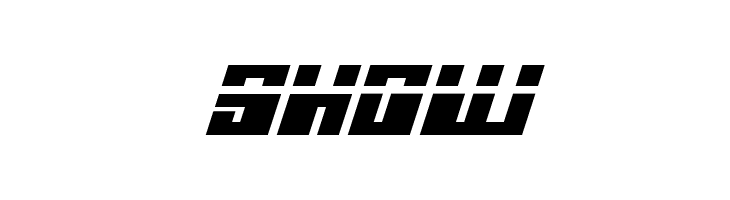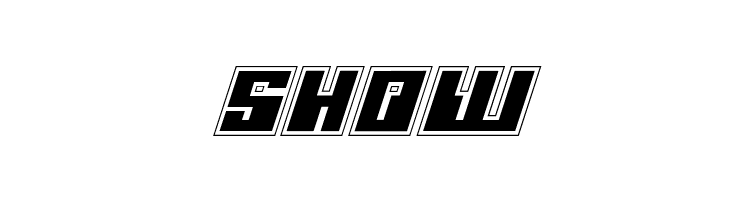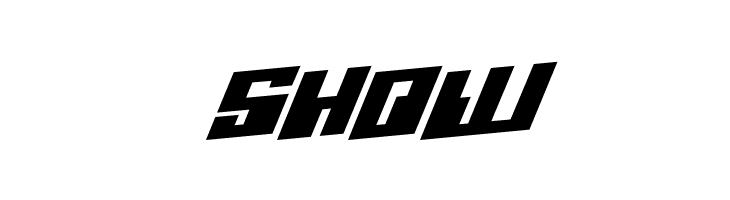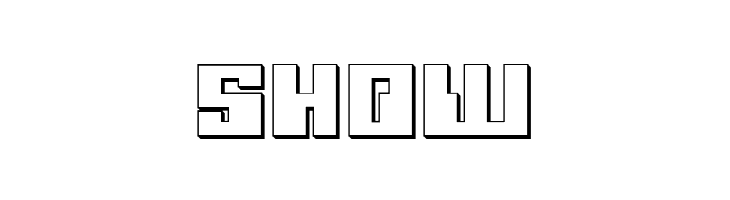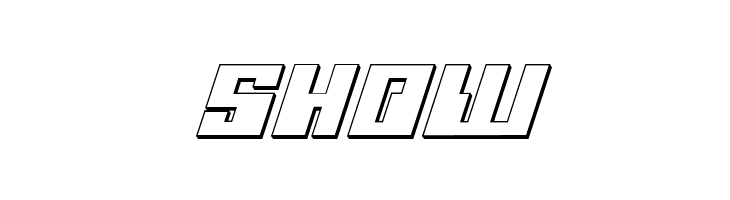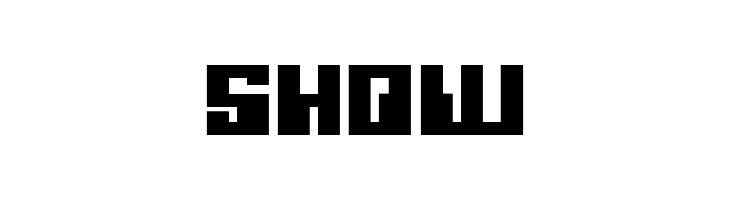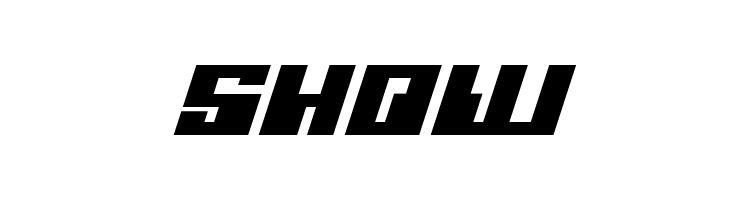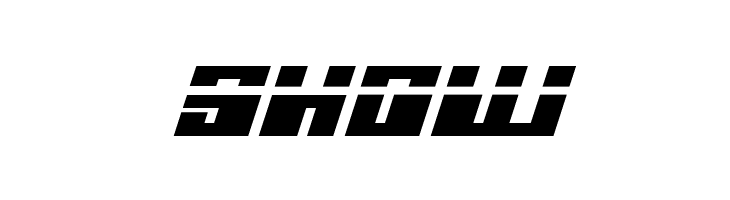
Faxine Sky Italic Font
A bold, futuristic font with angular, italicized characters.
A bold, geometric italic font with a futuristic and dynamic style.
A bold, angular, and futuristic font with a dynamic slant.
A bold, 3D geometric font with a futuristic and structured appearance.
A bold, 3D italic font with a geometric and futuristic style.
A bold, geometric font with a modern, digital aesthetic.
A bold, expanded, and italicized font with a futuristic and angular design.
A futuristic, bold, and expanded italic font with sharp geometric angles.